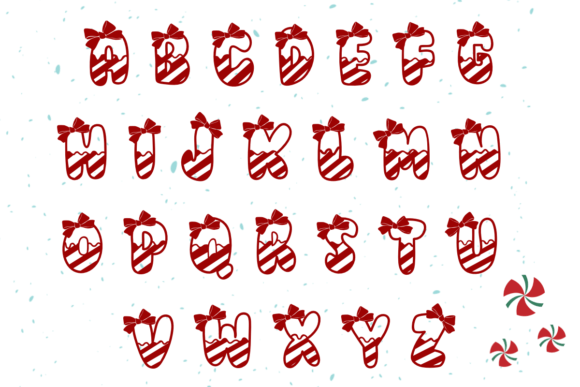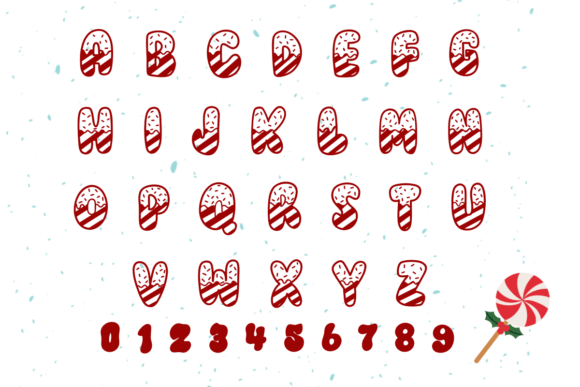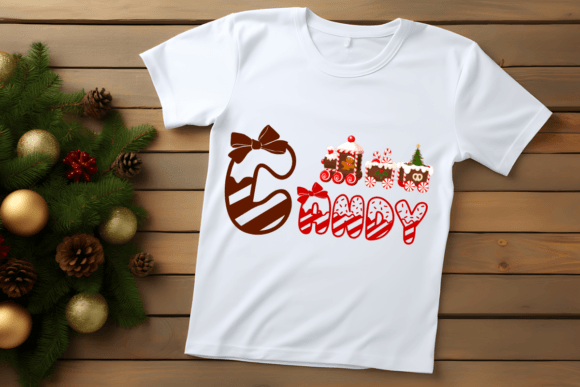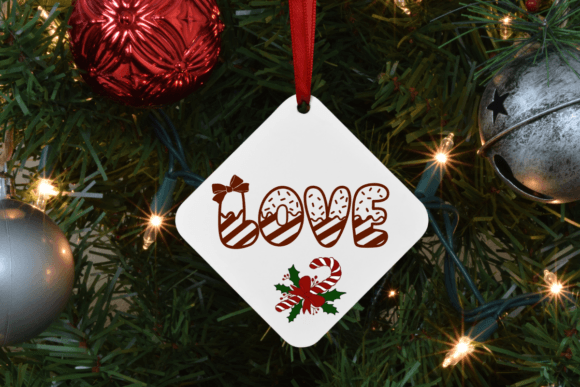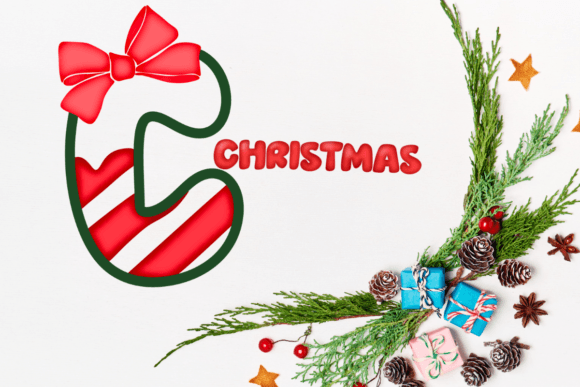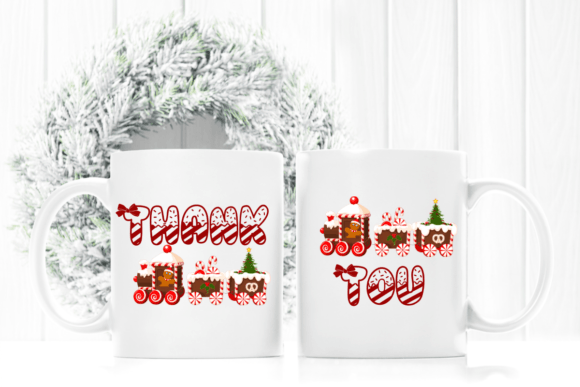
Cute Candy Font: A Sweet Addition to Your Christmas Designs
Are you looking for a festive and fun font to add some sweetness to your Christmas designs? Look no further than the Cute Candy Font! This adorable Christmas decorative font is perfect for a variety of creative projects, from personal notes and diaries to professional designs and marketing materials.
What is Cute Candy Font?
Cute Candy Font is a specially designed font that captures the whimsical and playful spirit of Christmas. Its cute and colorful letters are sure to bring a smile to anyone’s face, making it an ideal choice for holiday-themed designs. Whether you’re a designer, crafter, or simply a DIY enthusiast, this font is sure to inspire your creativity.
Uses for Cute Candy Font
The versatility of Cute Candy Font is one of its best features. You can use it for a wide range of projects, including:
- Note-taking: Add a touch of festive fun to your notes and to-do lists.
- Diary writing: Make your diary entries more engaging and personalized with this delightful font.
- Greeting cards: Create one-of-a-kind Christmas cards that will delight your friends and family.
- Banners: Design eye-catching banners for your website, social media, or marketing materials.
- Content creation: Add a playful touch to your blog posts, articles, or social media updates.
- Mugs and water bottles: Design fun and colorful drinkware that makes perfect gifts or promotional items.
- Cards and invitations: Create custom cards and invitations for parties, events, or special occasions.
- Shirts and apparel: Design festive t-shirts, hoodies, or hats that are sure to be a hit.
- Stationery: Add a touch of whimsy to your stationery, including notebooks, journals, or stickers.
- Social media posts: Make your social media posts more engaging and festive with this adorable font.
Why Choose Cute Candy Font?
So why choose Cute Candy Font for your Christmas designs? Here are just a few reasons:
- Unique and playful design: This font is sure to stand out from more traditional Christmas fonts.
- Versatile: Use it for a wide range of projects, from personal to professional.
- Festive and fun: Add a touch of holiday cheer to your designs with this delightful font.
Tips for Using Cute Candy Font
Here are a few tips for getting the most out of Cute Candy Font:
- Experiment with colors: Try pairing the font with different colors and textures to create unique effects.
- Mix and match: Combine Cute Candy Font with other fonts or graphics to create visually interesting designs.
- Keep it simple: Don’t be afraid to use the font on its own for a clean and simple look.
- Have fun: The most important thing is to enjoy the process of creating and experimenting with this adorable font!
Cute Candy Font is a sweet and festive addition to any Christmas design project. Its playful and whimsical design makes it perfect for a wide range of creative endeavors, from personal notes and diaries to professional designs and marketing materials. With its ease of use and versatility, this font is sure to become a favorite among designers, crafters, and DIY enthusiasts alike. So why wait? Download Cute Candy Font today and start adding a touch of holiday cheer to your designs!